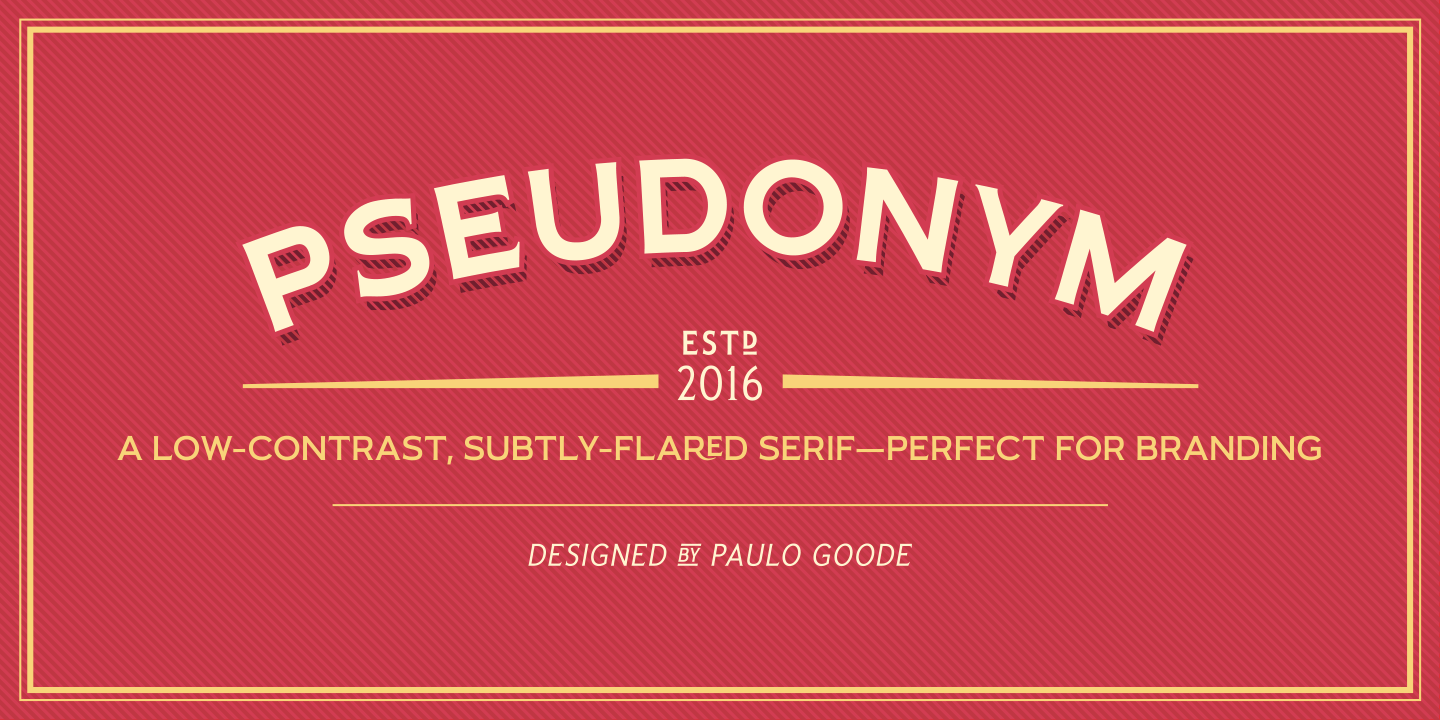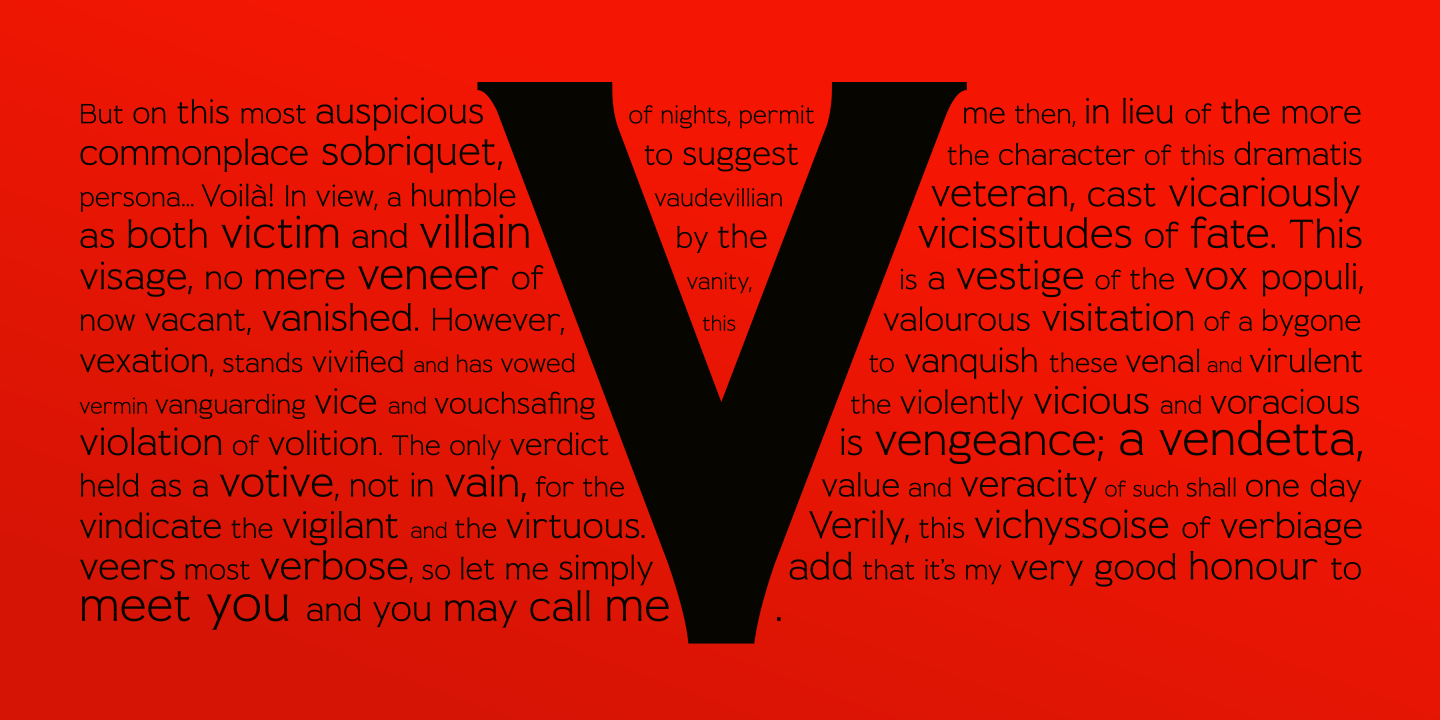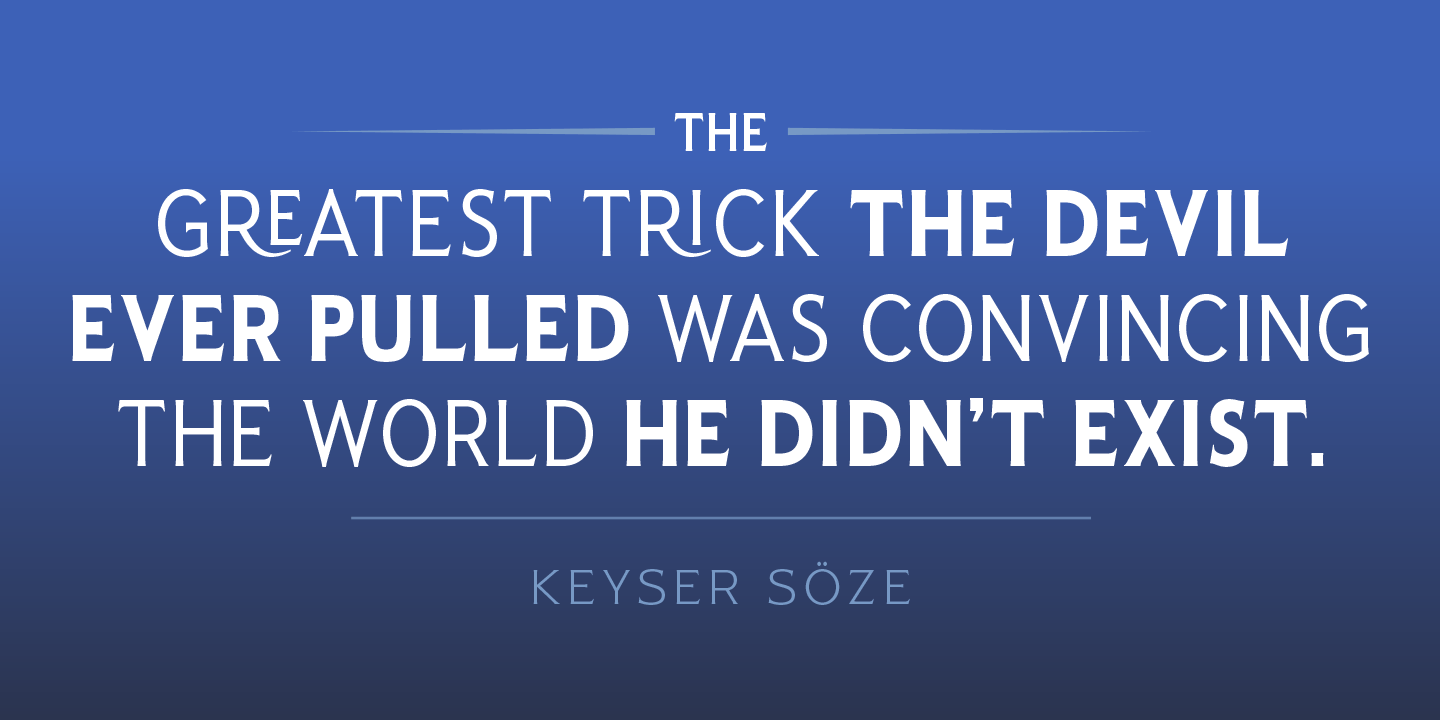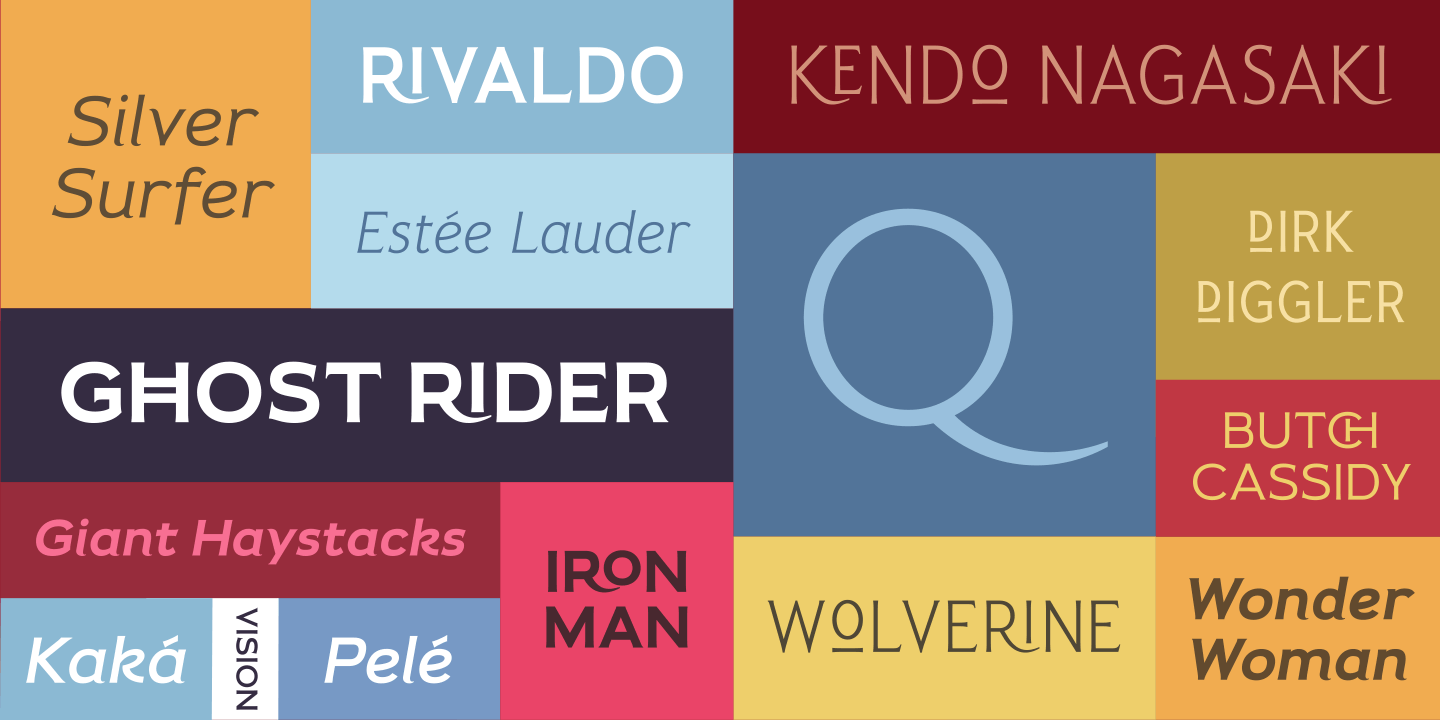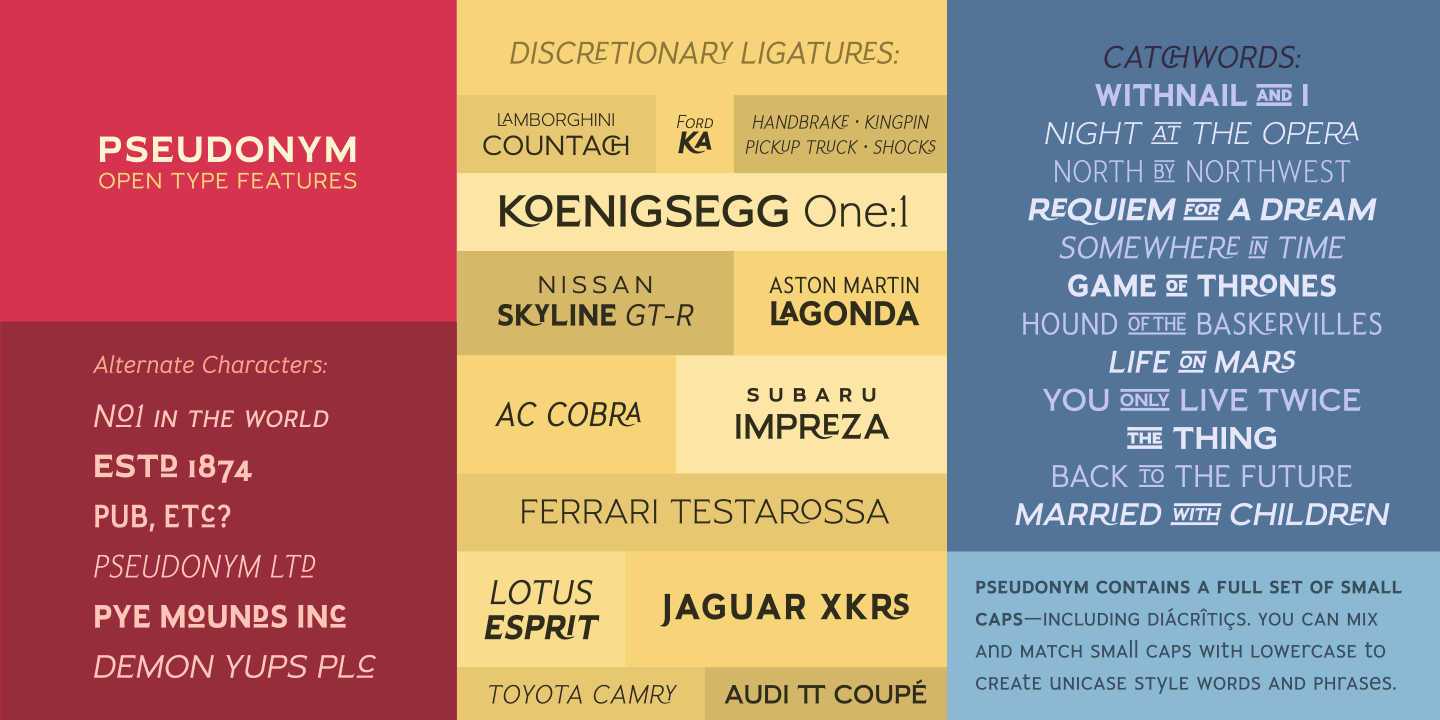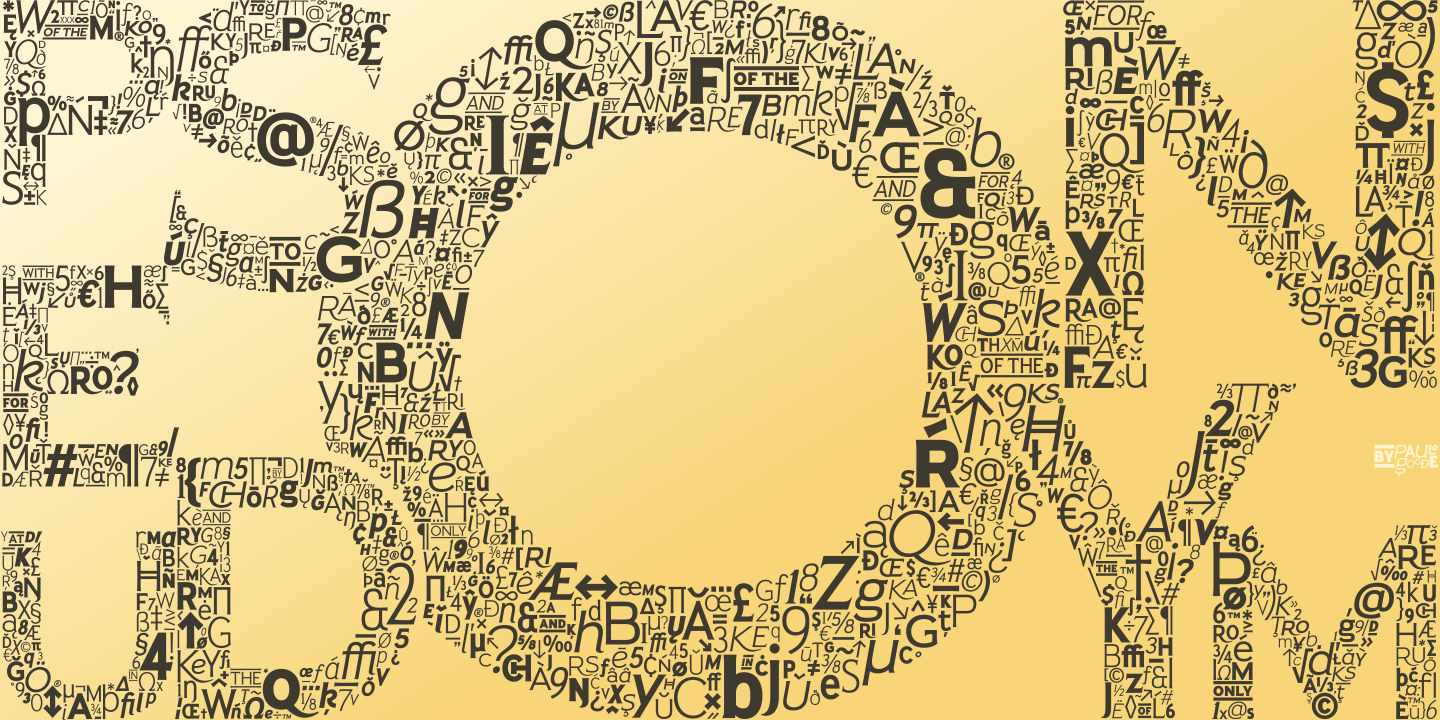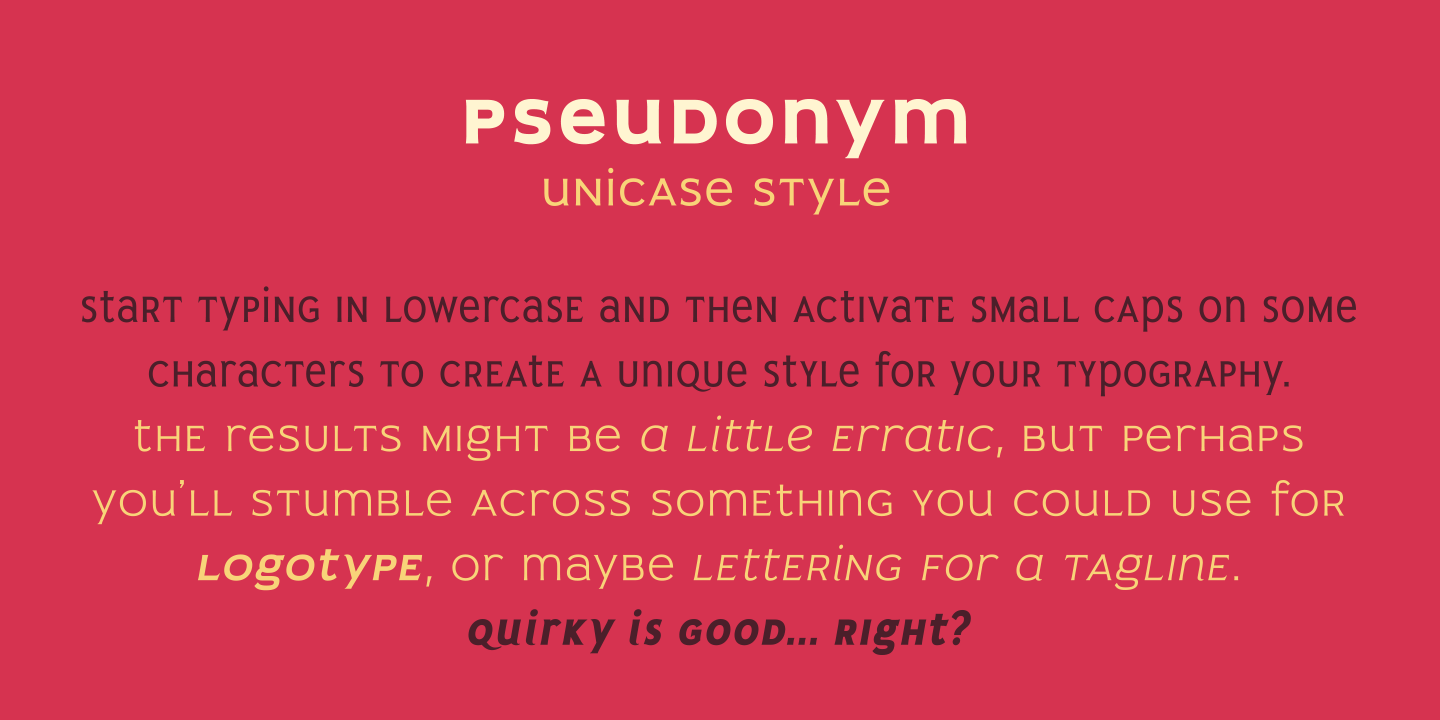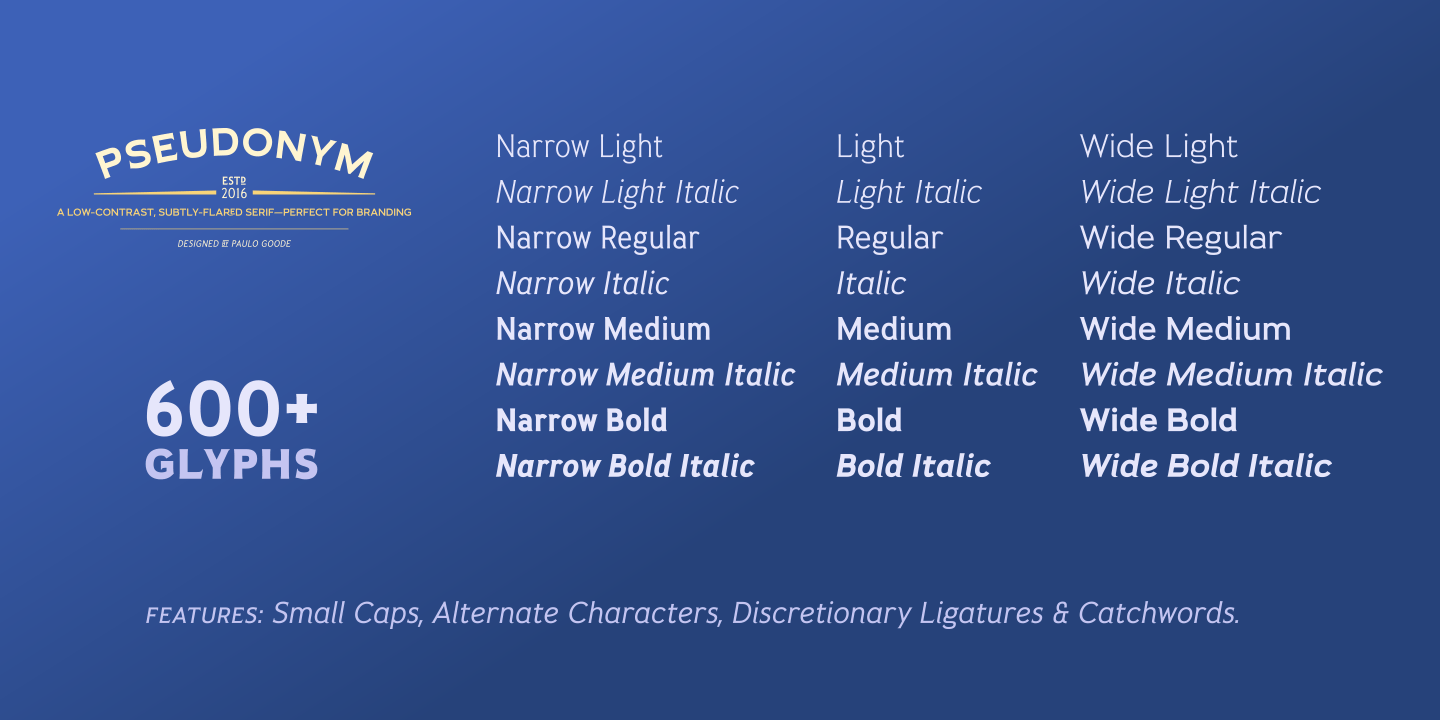
About Pseudonym Font Family Pseudonym is a low-contrast, subtly-flared serif available in four weights across three styles in both roman and italic, As with all of my typeface designs, I am creating fonts that I would use myself for branding purposes—typefaces with style and purpose that are intended for use in creating logos and distinctive branding typography
I wanted to create a typeface that had incisive flared serifs combined with the strength and solidity of modern grotesque faces, The result is Pseudonym, which I feel has great presence, style and legibility, Although I must admit, I had to tone down the flared serifs during the design process in order to achieve that :)I’m sure you will have great fun playing with some of the Open Type features that I’ve added to Pseudonym
There’s a full set of true small caps with their corresponding diacritics and figures, There are also a number of discretionary ligatures, these are chosen from the glyphs palette in your layout app to replace pairs of standard characters, You’ll also enjoy making use of the catchwords – these have been created to harmonise with each style, again, giving you more flexibility and scope to create some innovative typography
Finally, there are some alternate characters for /C/D/O/, You may wish to use these when creating logos that include standard contractions for limited, number, incorporated, etc, Key features:• Pseudonym is a low-contrast, subtly-flared serif that has great presence, style and legibility• 3 styles – Narrow, Regular and Wide• 4 weights in roman and italic:• Light | Regular | Medium | Bold• Full set of small caps with diacritics and figures• 30+ discretionary ligatures, catchwords and alternate characters• Full European character set• 600 glyphs per font Designers: Paulo GoodePublisher: Paulo GoodeFoundry: Paulo GoodeDesign Owner: Paulo GoodeMyFonts debut: Jan 28, 2016 Pseudonym